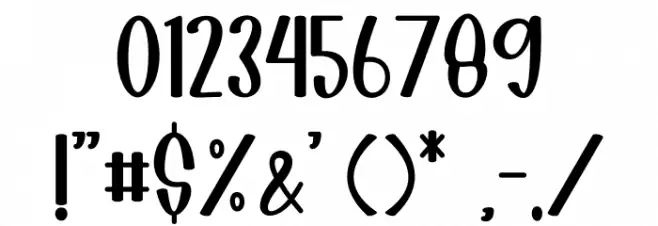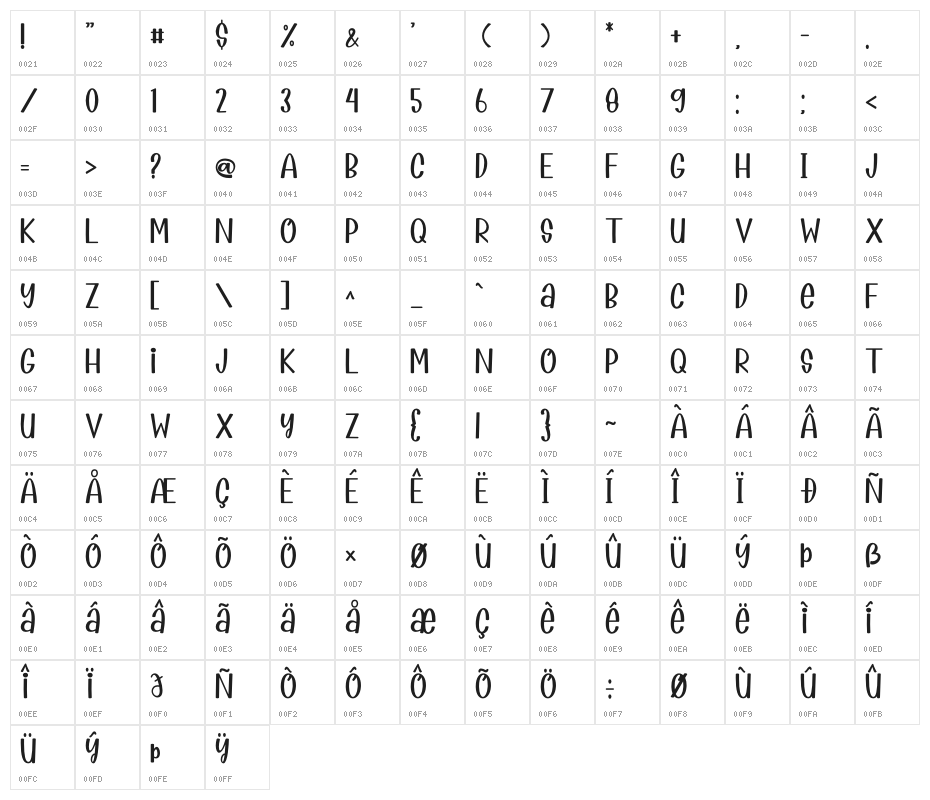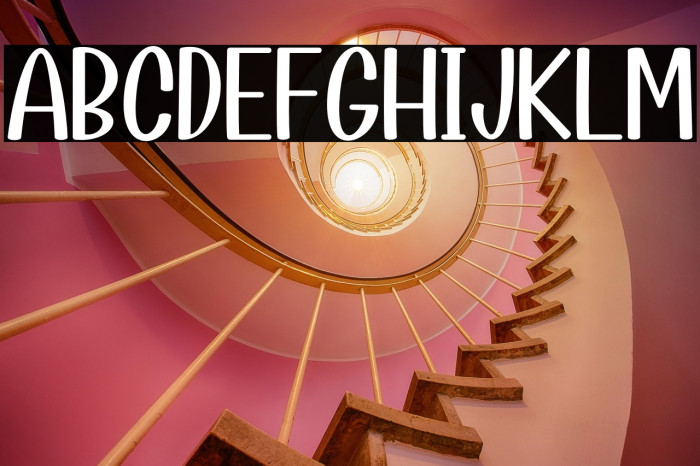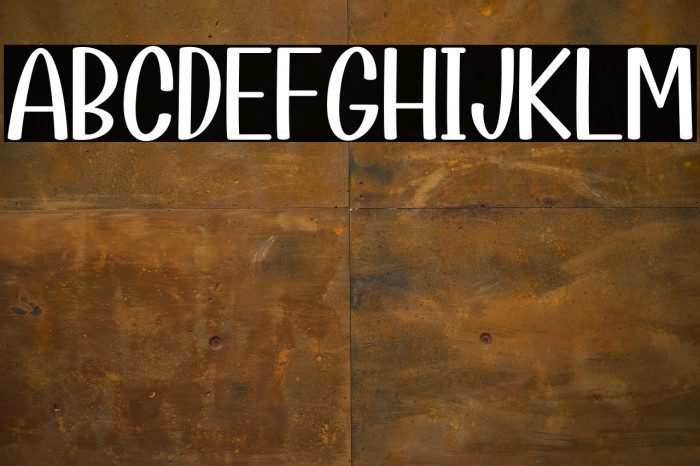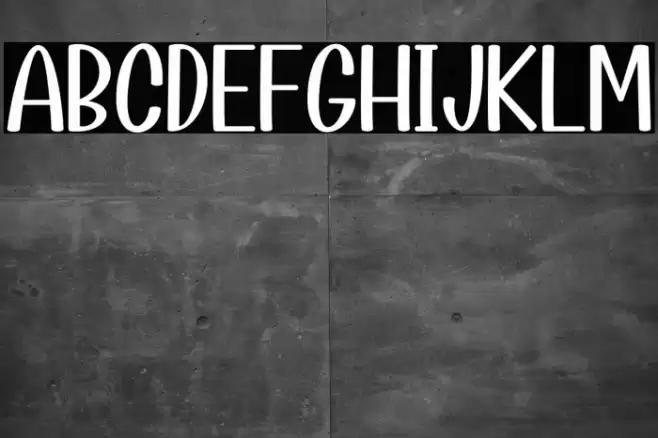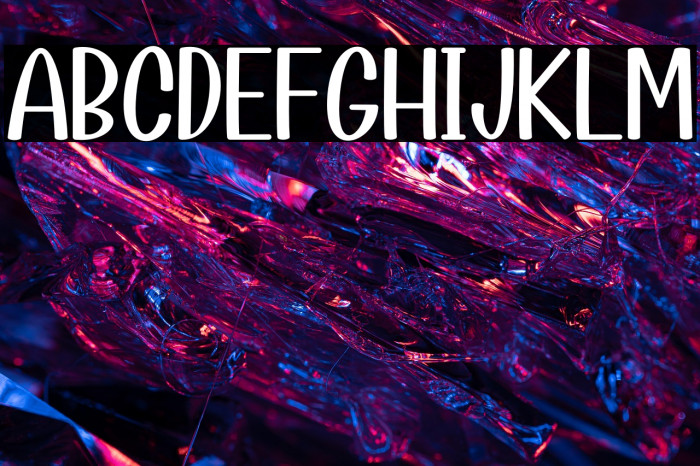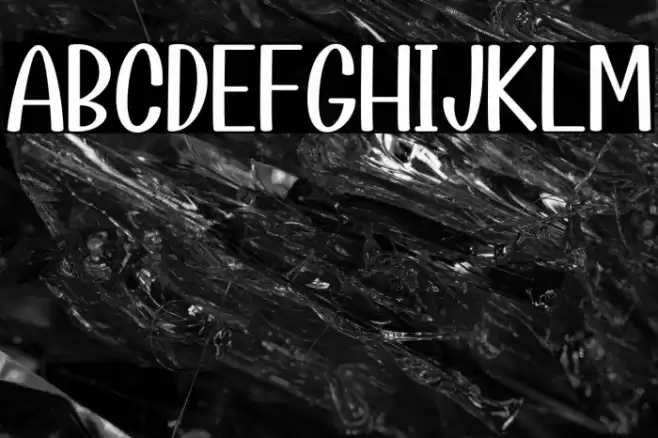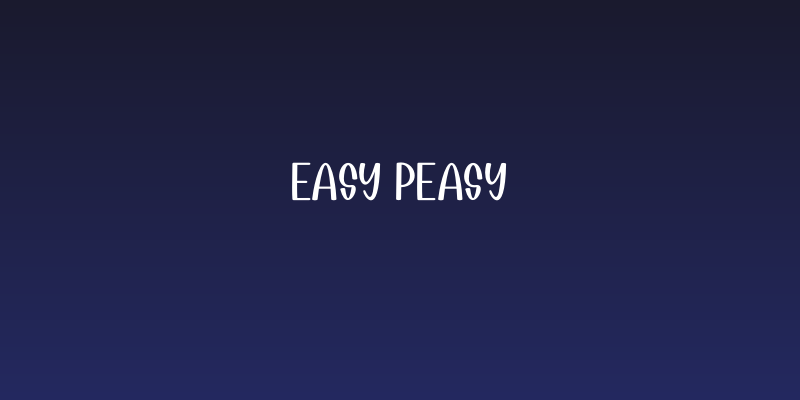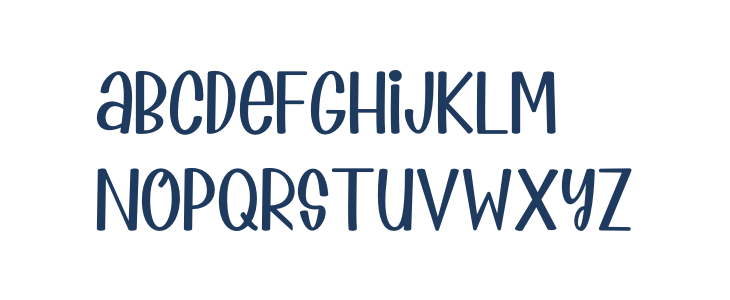
Easy Peasy Font
Easy Peasy Description
This playful and bold font features a handwritten style with a modern twist. The characters are slightly elongated and have a casual, friendly appearance. The uppercase and lowercase letters maintain a consistent style, with rounded edges and a smooth flow. The numbers are clear and easy to read, matching the overall aesthetic of the alphabet. Special characters are designed with the same playful touch, making them suitable for various creative applications. The font's unique style makes it stand out, perfect for projects that require a personal and approachable feel.
| Proposed Projects | Ideal for greeting cards, children's books, playful branding, and social media graphics. |